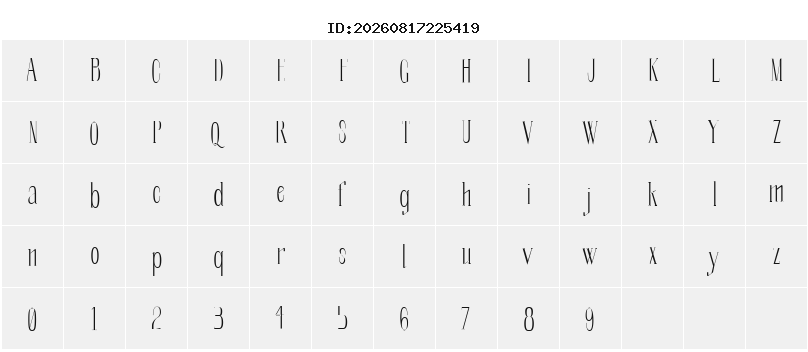
Soberba Serif Preview
• Font Name: Soberba Serif
• Full Font Name: SoberbaSerif-Regular
• PostScript Name: SoberbaSerif-Regular
• Designer: Mateus Pinheiro, Nayana Carneiro and Valeska Meskita
• Manufacturer: Mateus Pinheiro, Nayana Carneiro, Valeska Mesquita e Eduardo Novais
About Soberba Serif.ttf
Soberba Serif.ttf is a modern, elegant sans-serif font designed for ultimate readability and visual harmony. Perfect for branding, headlines, web design, and print materials.